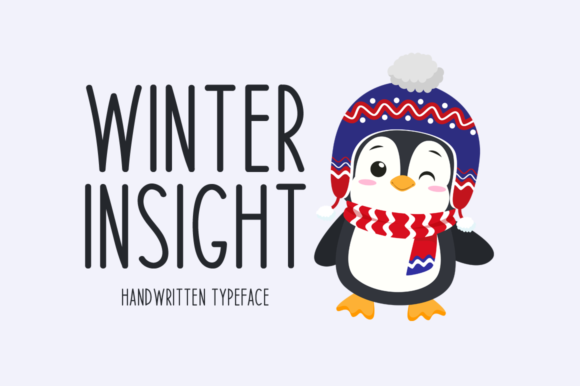
Step into the realm of typography with Winter Insight, a captivating sans serif font family that exudes simplicity and elegance. Its natural allure seamlessly adapts to a vast spectrum of designs, making it an indispensable tool for creative minds. From branding projects that yearn for a touch of sophistication to digital designs seeking a modern edge, Winter Insight gracefully rises to the occasion.
With its clean lines and harmonious curves, Winter Insight effortlessly complements any visual composition. Imagine the impact it will make on your logos, adding a touch of understated refinement that instantly elevates your brand's identity. Whether you're crafting brochures, flyers, or website layouts, the versatility of Winter Insight ensures seamless integration, enhancing the overall user experience.
Embrace the boundless potential of Winter Insight as you explore its meticulously crafted characters. Each letterform is a testament to precision and artistry, inviting you to unleash your creativity and craft designs that resonate with your audience. Whether you prefer the classic charm of print designs or the dynamic realm of digital media, Winter Insight effortlessly adapts, becoming an extension of your creative vision.
With Winter Insight as your font of choice, you'll discover a world of possibilities. Its versatility extends to social media graphics, where every post and story will radiate with polished elegance. Design captivating posters that demand attention, leaving an indelible impression on your audience. And as you venture into the realm of packaging design, Winter Insight will elevate your products, transforming them into objects of desire.